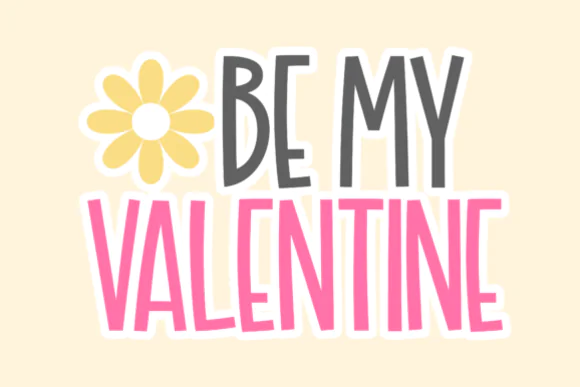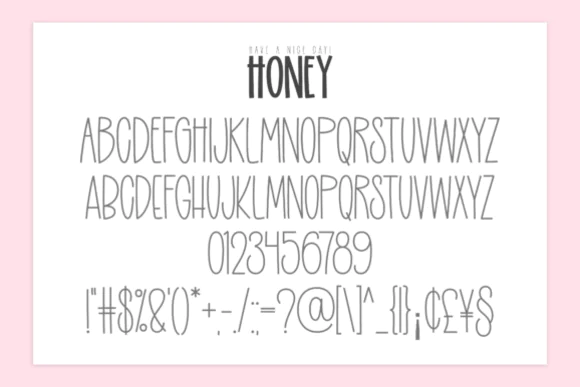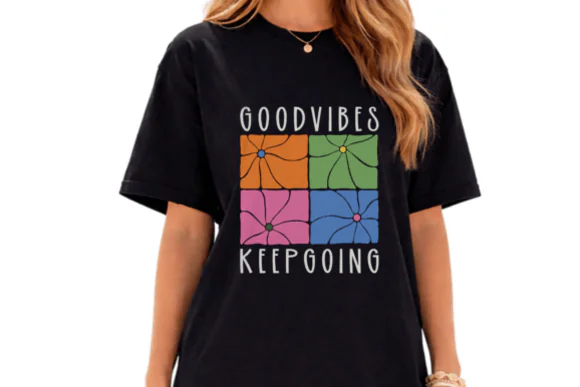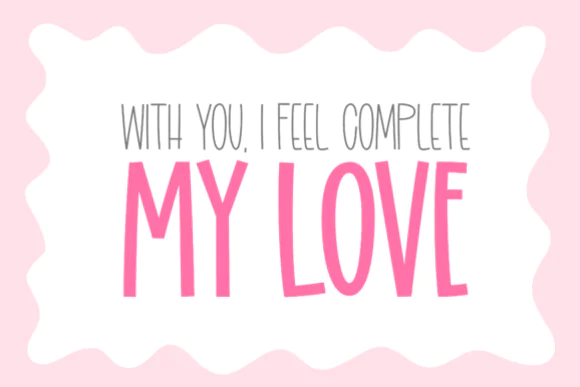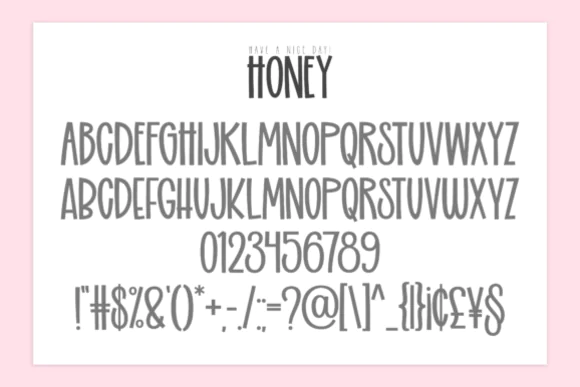
Have a Nice Day Honey Font Duo – Charming Handwritten Display & Narrow Script Typeface for Branding, Posters, Greeting Cards, Social Media Graphics, Quotes, Packaging & Cheerful Creative Designs
Create warm, friendly, and cheerful designs with Have a Nice Day Honey Font, a charming handwritten font duo that pairs a tall bold display typeface with a light narrow handwritten companion. This beautiful contrast gives your designs both strong personality and soft elegance, making it perfect for projects that need a welcoming, upbeat, and handcrafted feel.
The main Honey font features quirky proportions, rounded edges, and an organic hand-drawn style that feels modern, playful, and full of charm. The secondary Have a Nice Day! font adds a delicate, airy handwritten touch, making it ideal for accent words, supporting text, quotes, and decorative typography combinations.
This font duo works beautifully for branding, posters, greeting cards, social media graphics, quote designs, packaging, stickers, invitations, product labels, boutique designs, printable wall art, DIY crafts, Cricut projects, and cheerful merchandise. Whether you are creating a happy brand logo, cozy greeting card, positive quote poster, cute sticker design, or friendly social media graphic, Have a Nice Day Honey Font helps your words feel bright, personal, and memorable.
Key Features
• Charming handwritten font duo
• Tall bold playful display font
• Light narrow handwritten companion font
• Quirky proportions with rounded edges
• Organic hand-drawn and handcrafted look
• Great contrast between bold and delicate styles
• Perfect for warm, welcoming, upbeat creative projects